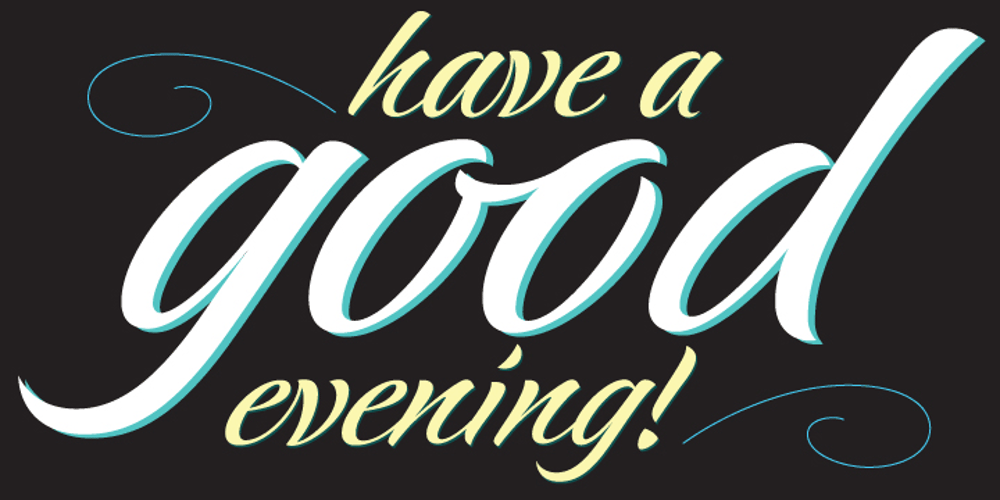
ALS Klementina
ALS Klementina font
ALS Klementina Font Family was designed by Elena Novoselova and published by Art. Lebedev Studio. ALS Klementina contains 1 styles and family package options. Klementina is a cursive typeface based on brush pen handwriting. It has flowing feminine shapes and letters drawn with care and love, much like you find in a romantic young lady’s album. All characters settle into a line with ease, partially thanks to a number of ligatures and contextual alternates that help you avoid unpleasant combinations. This type is ideal to set something personal and touching. It will have this effect regardless of the presence of any sense in the text. Due to the attention paid to fine details it looks great even in big sizes. Klementina will come as a helping muse to any designer working with wedding invitations, announcements, gift and delicatessen packaging, or magazine layouts.